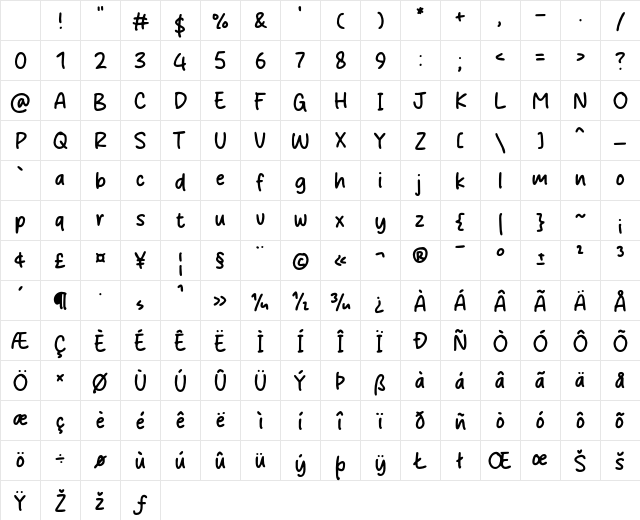
Complete Walkyo Regular glyph index. Displaying only characters natively supported by Walkyo Regular font.
Walkyo is a composed and adaptable typeface that performs quietly and consistently across a wide range of design contexts.